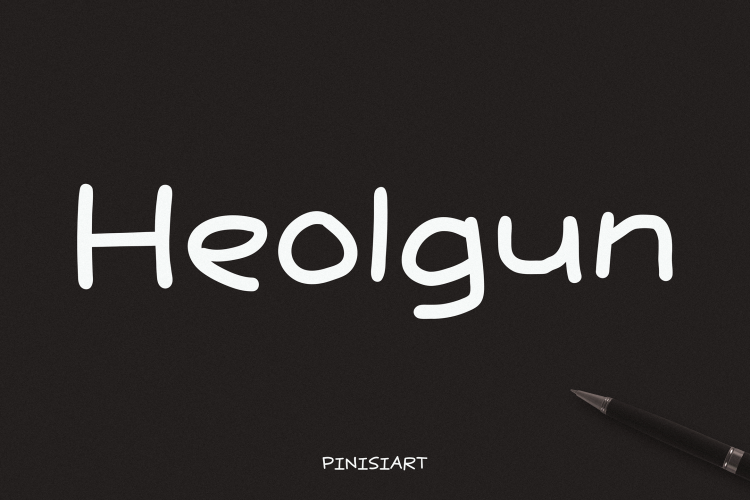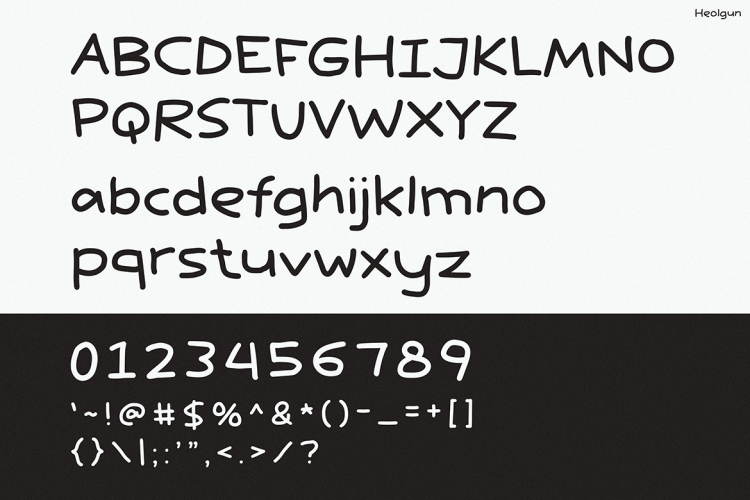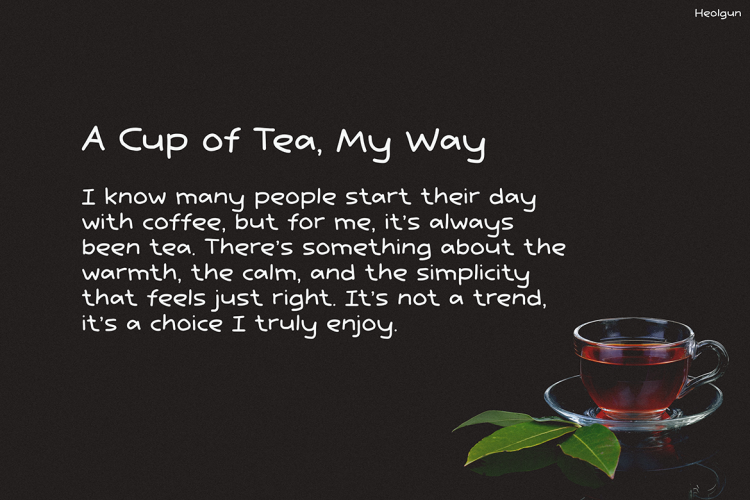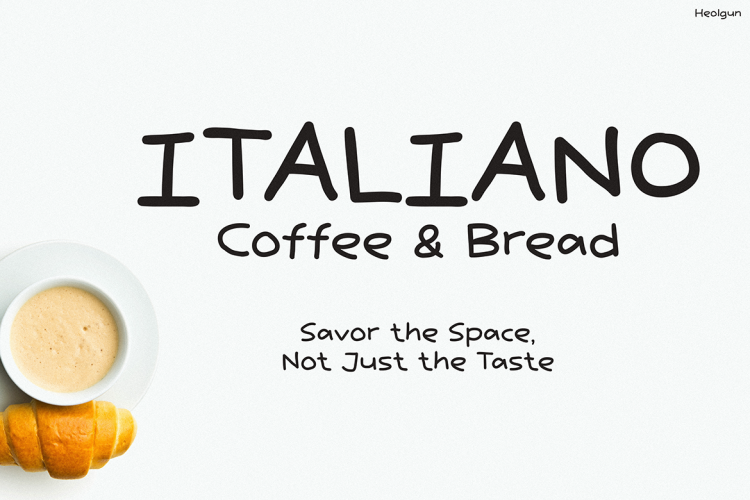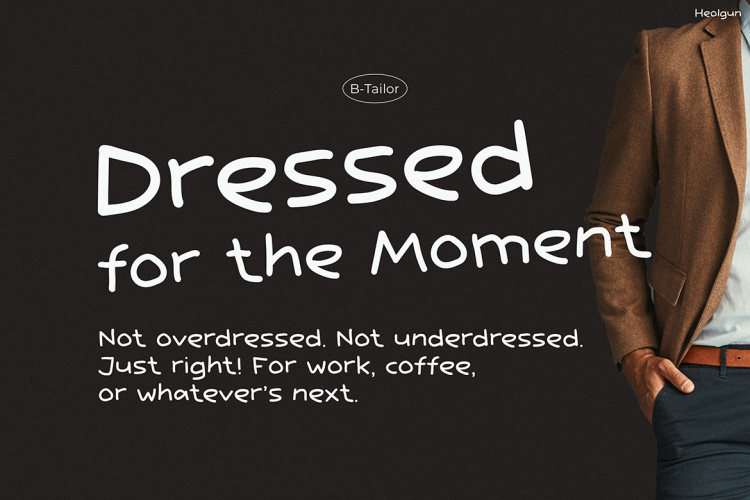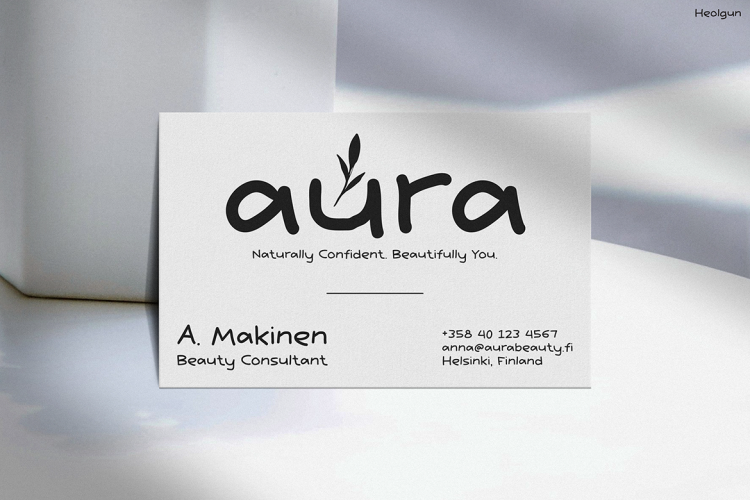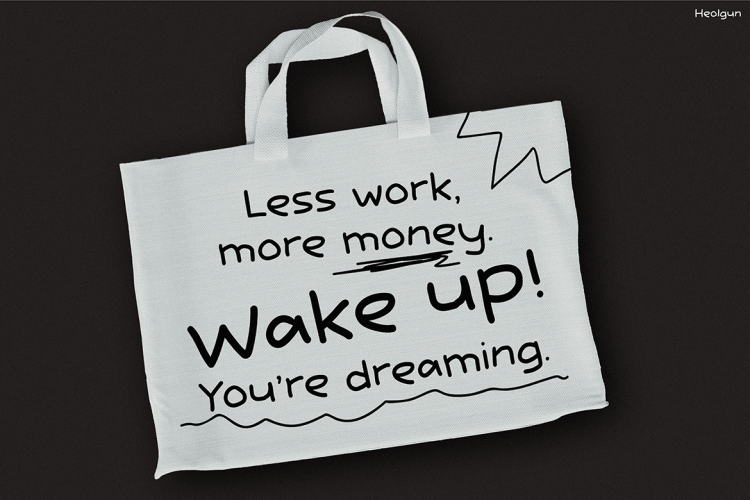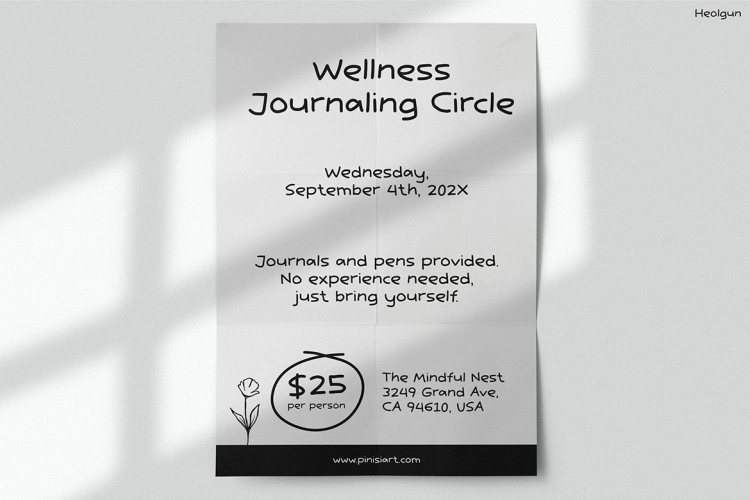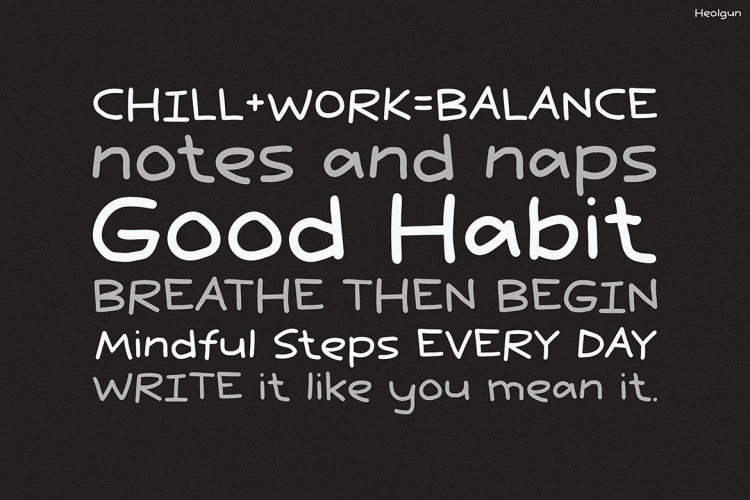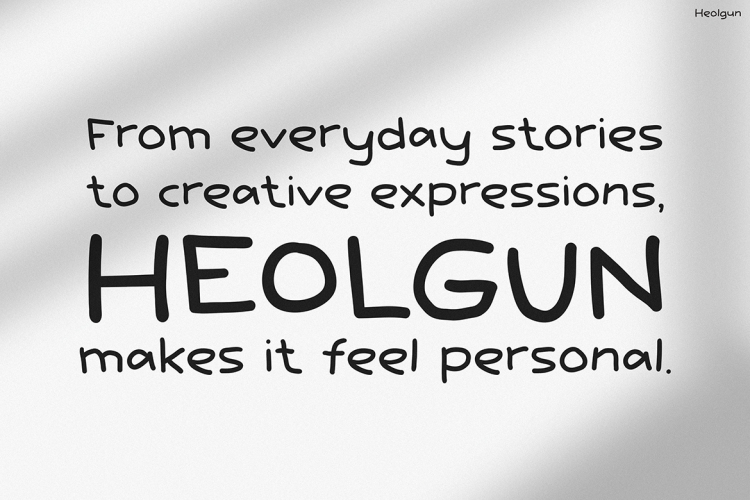
Handwriting Font Heolgun is a handwritten display font that brings warmth, clarity, and charm to your words. Its rounded edges and slightly imperfect strokes give it a human and friendly personality. As a result, it feels like a real note from a friend rather than a cold, digital typeface.
This font stands out because of its balance between structure and softness. Unlike overly polished fonts, Heolgun is casual yet clean. Therefore, it’s ideal for messages that need to feel both expressive and authentic.
In addition, Heolgun adapts to various styles and moods. You can use it in bold, dramatic settings like on a black background. On the other hand, it also works beautifully in soft, calm settings.
Moreover, it includes full character support—uppercase, lowercase, numbers, punctuation, and multilingual characters. Consequently, it’s functional and flexible enough for all kinds of branding and storytelling needs.
Handwriting Font Heolgun Who Is It For?
Content Creators & Influencers
If you’re posting regularly on Instagram, Heolgun helps you stay consistent and approachable. For example, you can use it for captions, Reels thumbnails, or inspirational quotes in Stories. Because of its relaxed tone, it draws people in naturally.
Small Business Owners & Cafés
Whether you’re promoting baked goods or launching a product, Heolgun adds a handcrafted and cozy feeling. Perfectly on menus, flyers, and social ads. Thus, your brand feels more personal.
Lifestyle Bloggers & Coaches
Heolgun also supports mindfulness and well-being themes. For instance, use it for journaling prompts, wellness content, or coaching quotes. In short, it delivers your message with clarity and care.
Fashion Brands or Personal Stylists
Handwriting Font Heolgun feels dressed-down but not boring. Because of this, it suits both formal and informal fashion branding.
The font is also great for personal projects. For example, it fits classroom notes, creative affirmations, or digital vision boards. Overall, it makes learning and writing feel lighter and more joyful.
Make It Yours